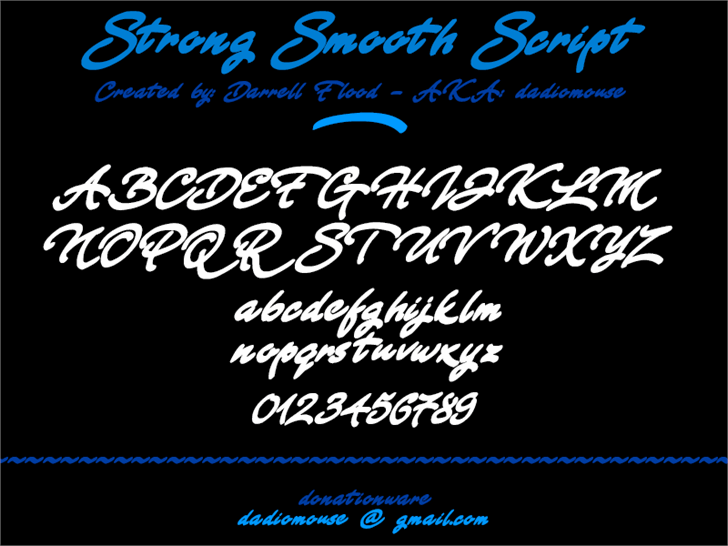
Featuring the gorgeous free strong smooth script font. Download this typeface from the original source of Font Space. Easily amaze your audience with this beautiful font and make your graphic designs pop up from the crowd.